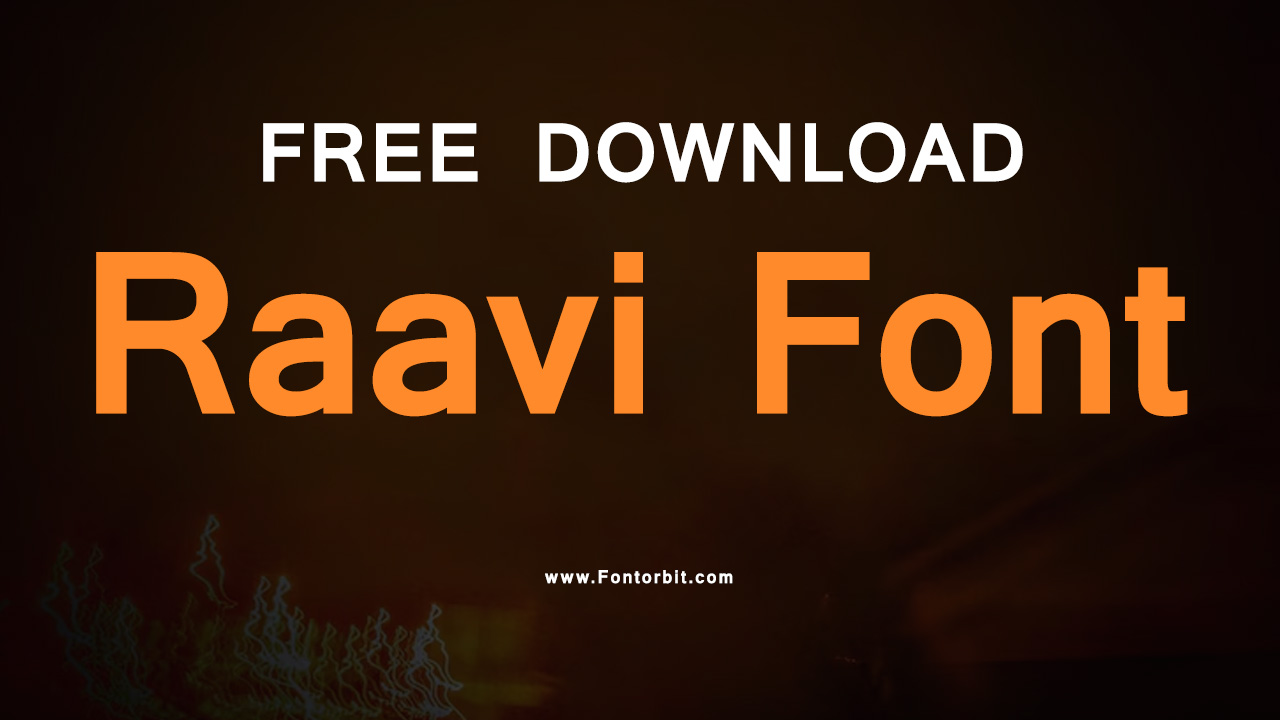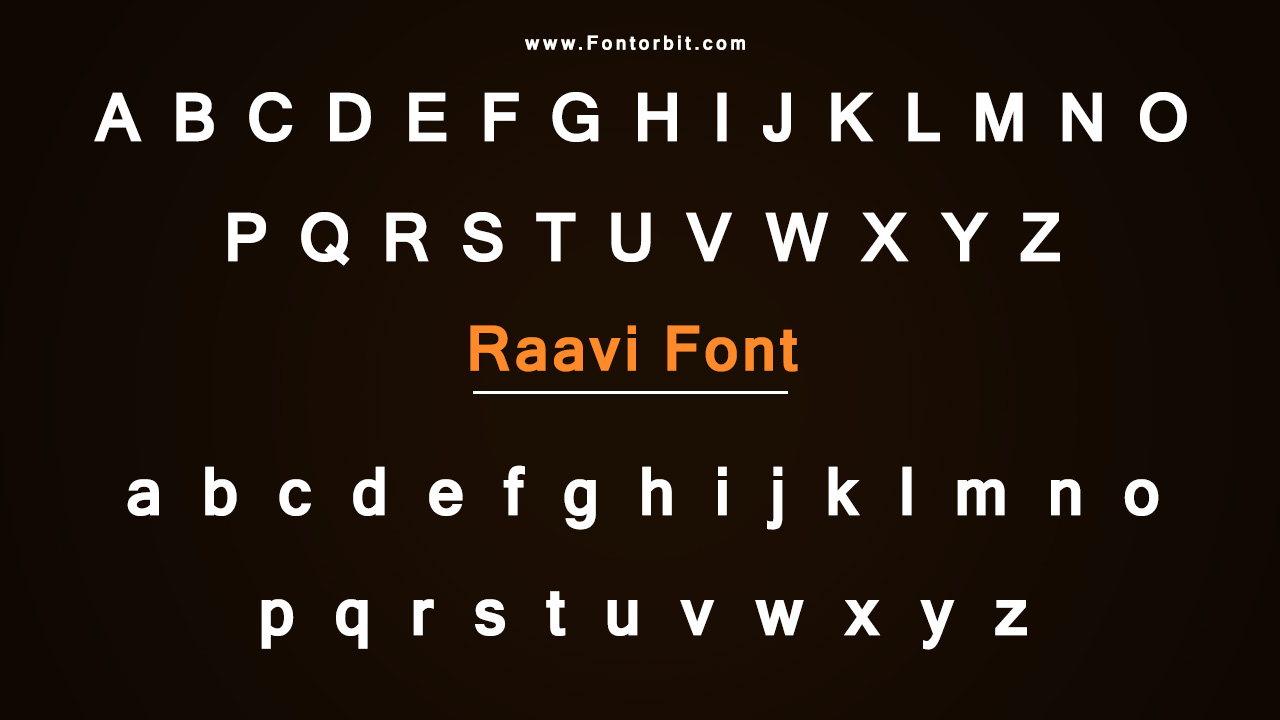
Raavi is a Unicode-compliant Gurmukhi font designed by Raghunath Joshi. It was first published as part of the Microsoft Typography library to support the Gurmukhi script, commonly used in the Punjabi language.
The font belongs to the sans-serif family, with a modern, clean look suitable for screen display and digital usage. It supports both Latin and Gurmukhi character sets.
Raavi Family Includes
The Raavi family is minimalistic, focusing on readability for on-screen text in both Latin and Gurmukhi scripts. It consists of:
- Raavi Regular
- Raavi Bold
Raavi is best suited for situations where you need to display content in the Gurmukhi script, especially on screens. Its sans-serif design helps maintain legibility in smaller sizes. It is particularly useful for:
- Software Interfaces
- Websites
- Digital Publications
- UI/UX Design
Raavi is a reliable and versatile font that facilitates the use of the Gurmukhi script in digital formats. Its clean, sans-serif style ensures readability in both Latin and Gurmukhi texts, making it essential for web and app designers targeting Punjabi-speaking audiences.
1.Can I Use Raavi For Print Design?
While Raavi is optimized for screen use, it can be used for print, but other fonts might be better suited for high-resolution print projects.
2.Which Microsoft Products Include Raavi?
It comes with Microsoft Windows and Office, supporting languages that use the Gurmukhi script.
3.What Languages Does Raavi Support?
It supports the Gurmukhi script, used in Punjabi, and includes Latin character support.
4.Can I Pair Raavi With Other Fonts?
Yes, it pairs well with minimalist sans-serif fonts like Arial or Helvetica for bilingual content.
5.Does Raavi Have Bold And Italic Styles?
Raavi includes a bold style but does not have a dedicated italic version.